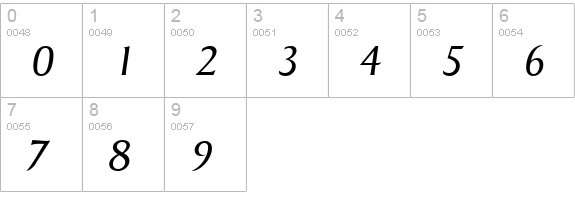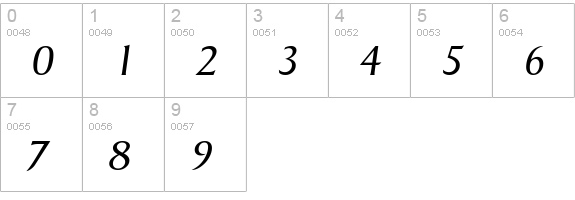
SigvarSerial-Light-Italic Font Details
SigvarSerial-Light-Italic is a refined, elegant, italic variant in the SigvarSerial typeface family \xE2\x80\x94 well suited to elegant body text, refined sub-headings, and luxury branding.
SigvarSerial-Light-Italic is a stylish and elegant font that exudes sophistication and modernity. With its delicate slant and sleek design, this font is perfect for adding a touch of class to any project. The light weight of the font gives it a subtle and refined appearance, making it ideal for conveying a sense of sophistication and professionalism. What makes SigvarSerial-Light-Italic even more appealing is that it is available for free download at FontsMarket.com. This means that you can easily access this high-quality font without any cost, making it a great choice for designers, creatives, and anyone looking to elevate their projects with a touch of elegance. Whether you're working on a logo, branding, invitations, or any other design project, SigvarSerial-Light-Italic is sure to make a lasting impression with its timeless and sophisticated style.